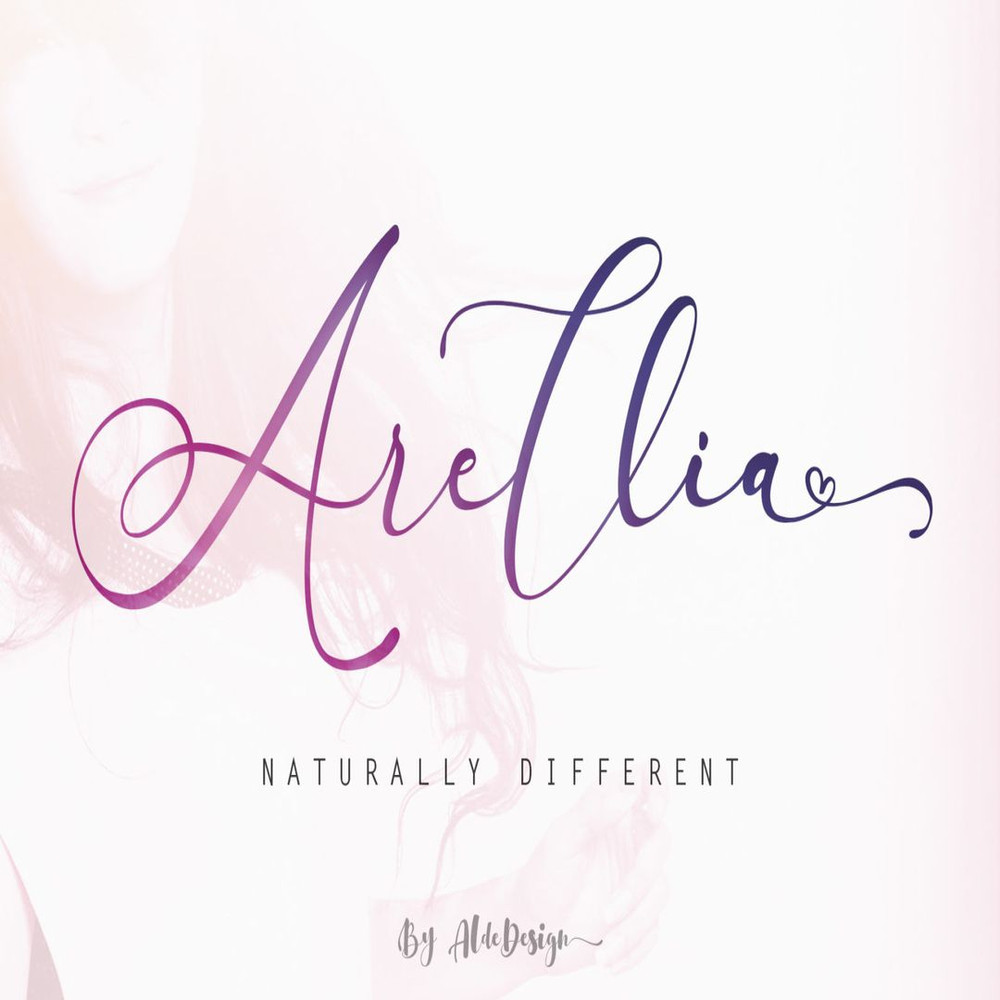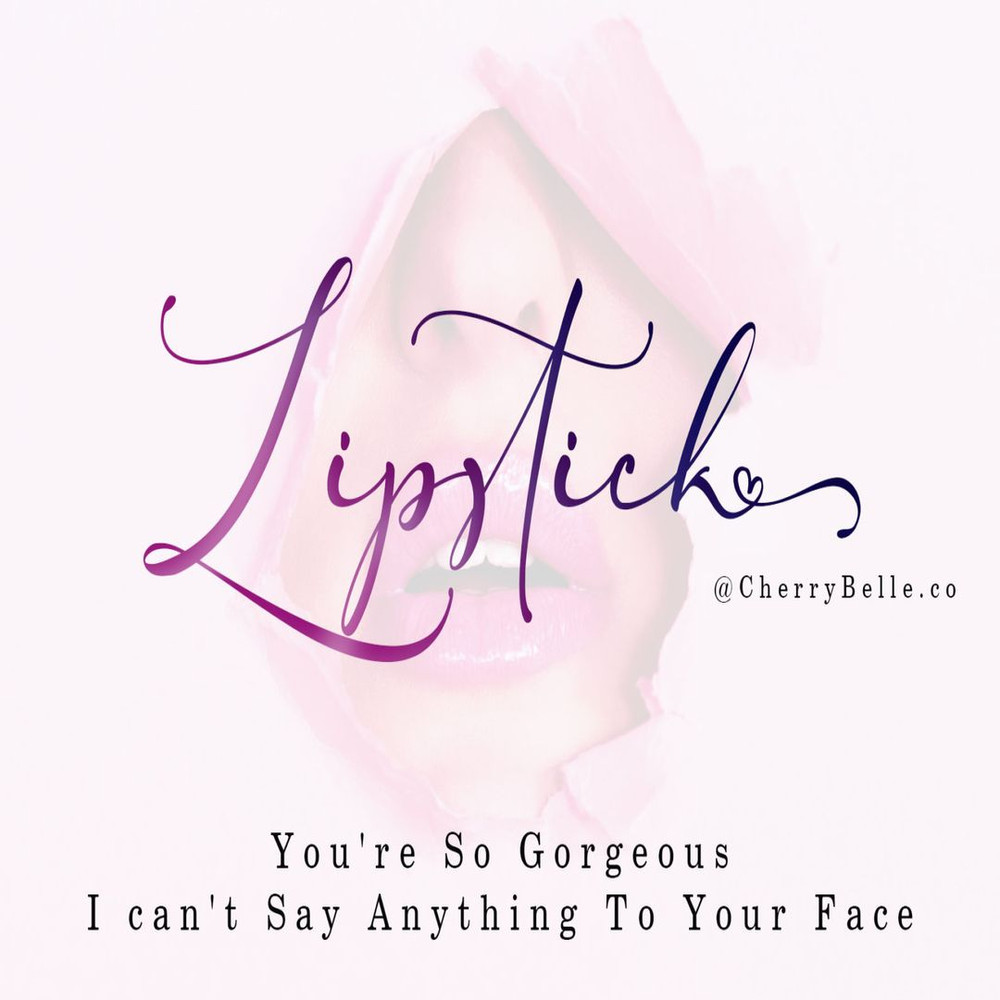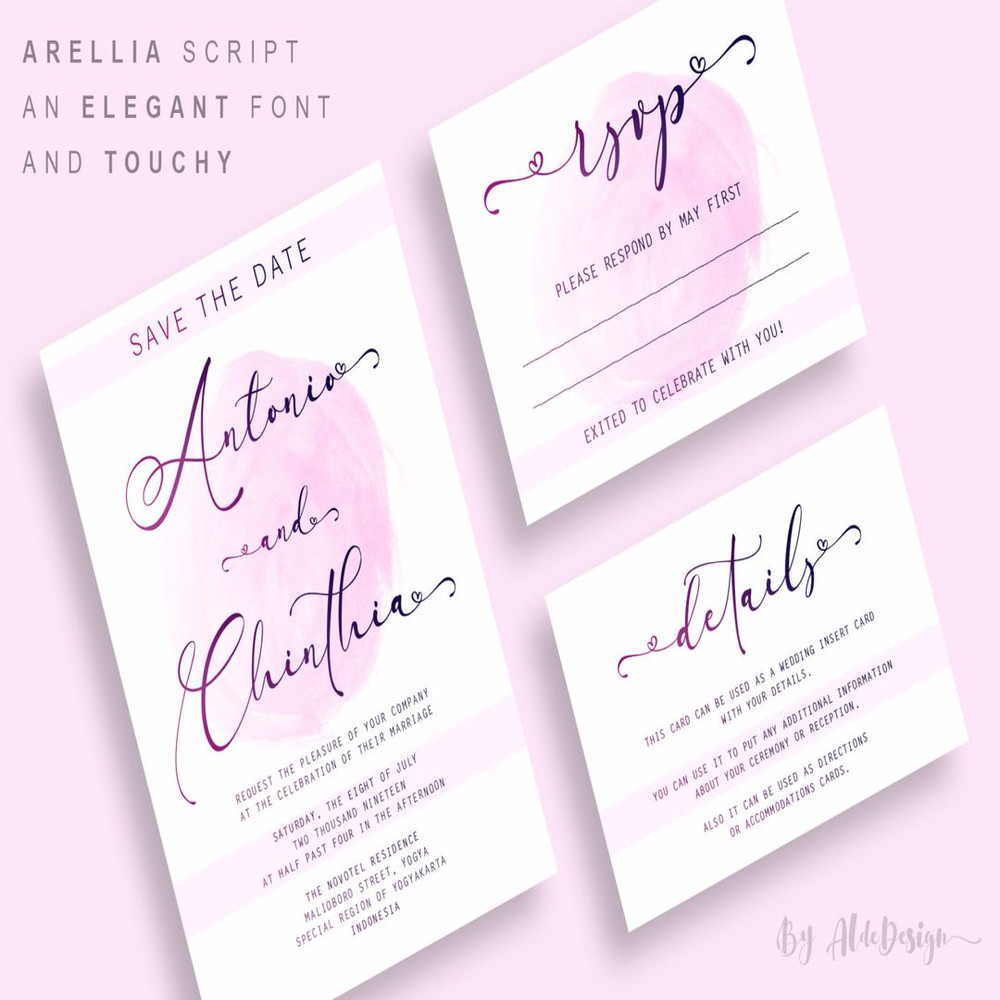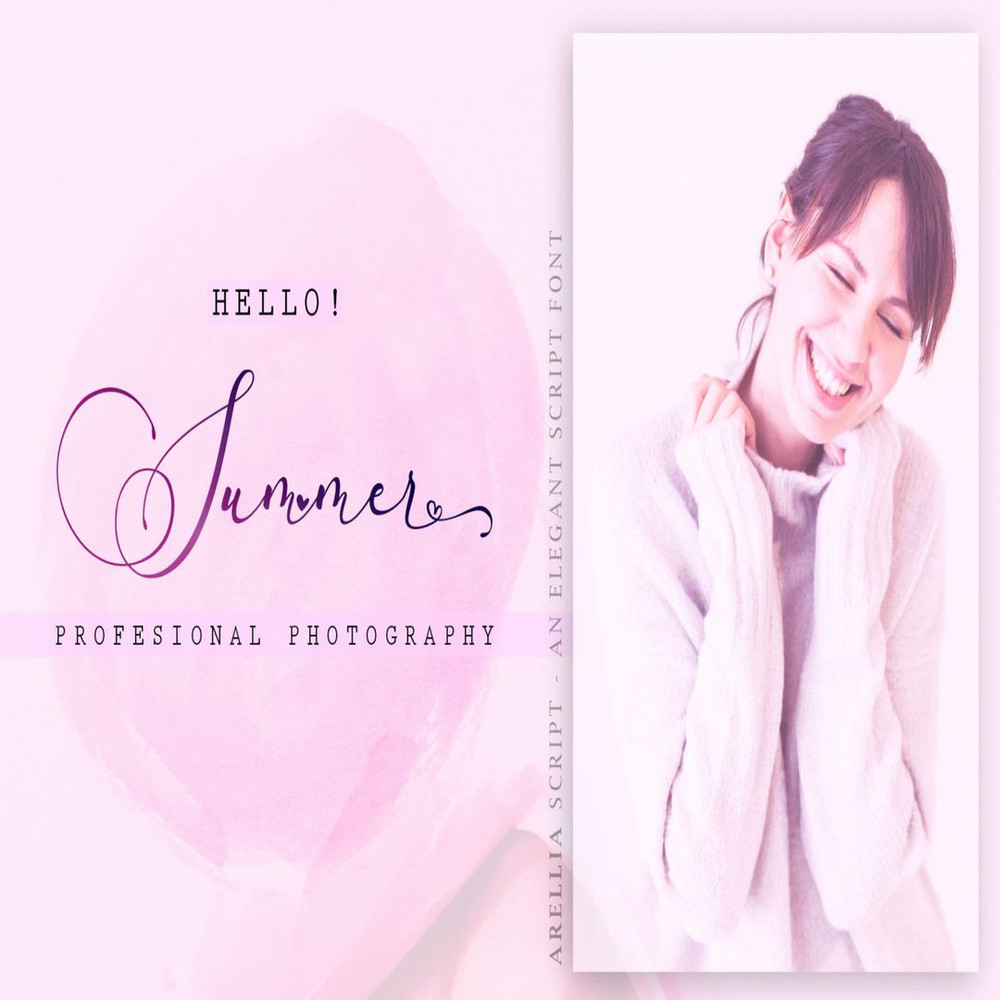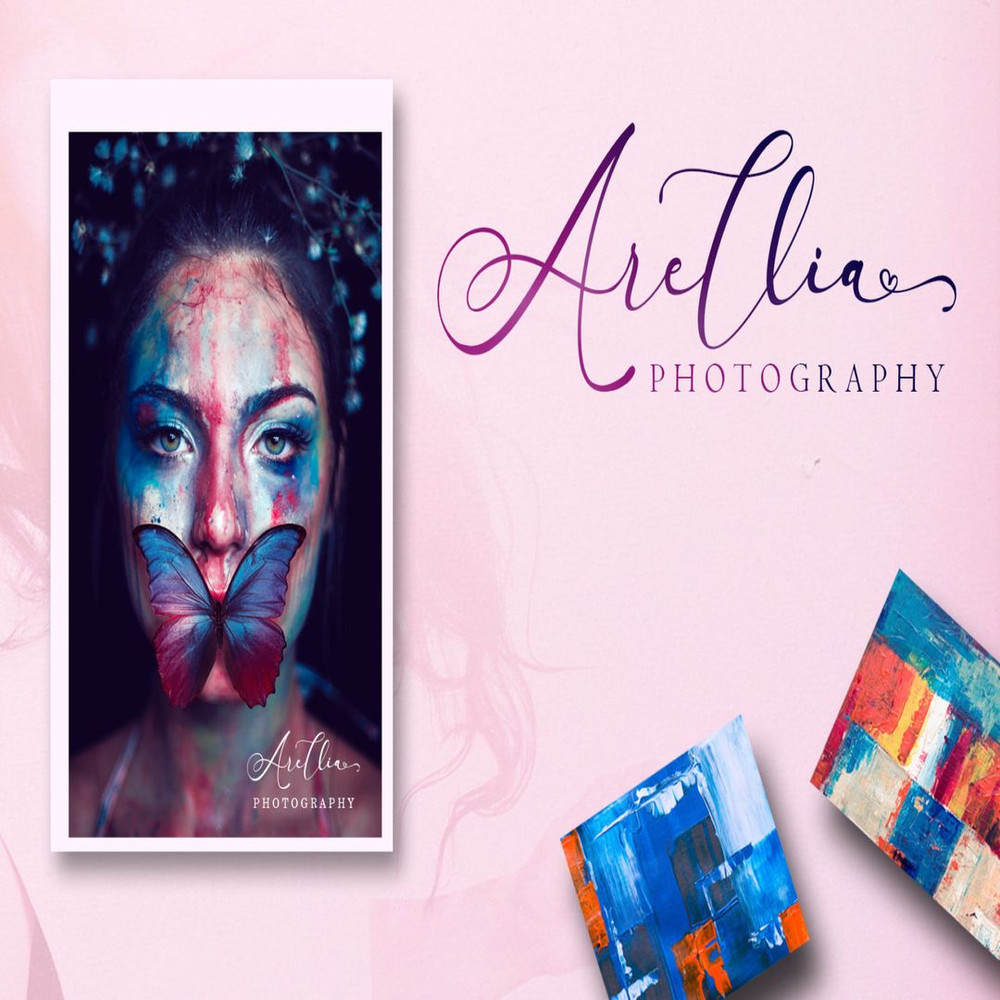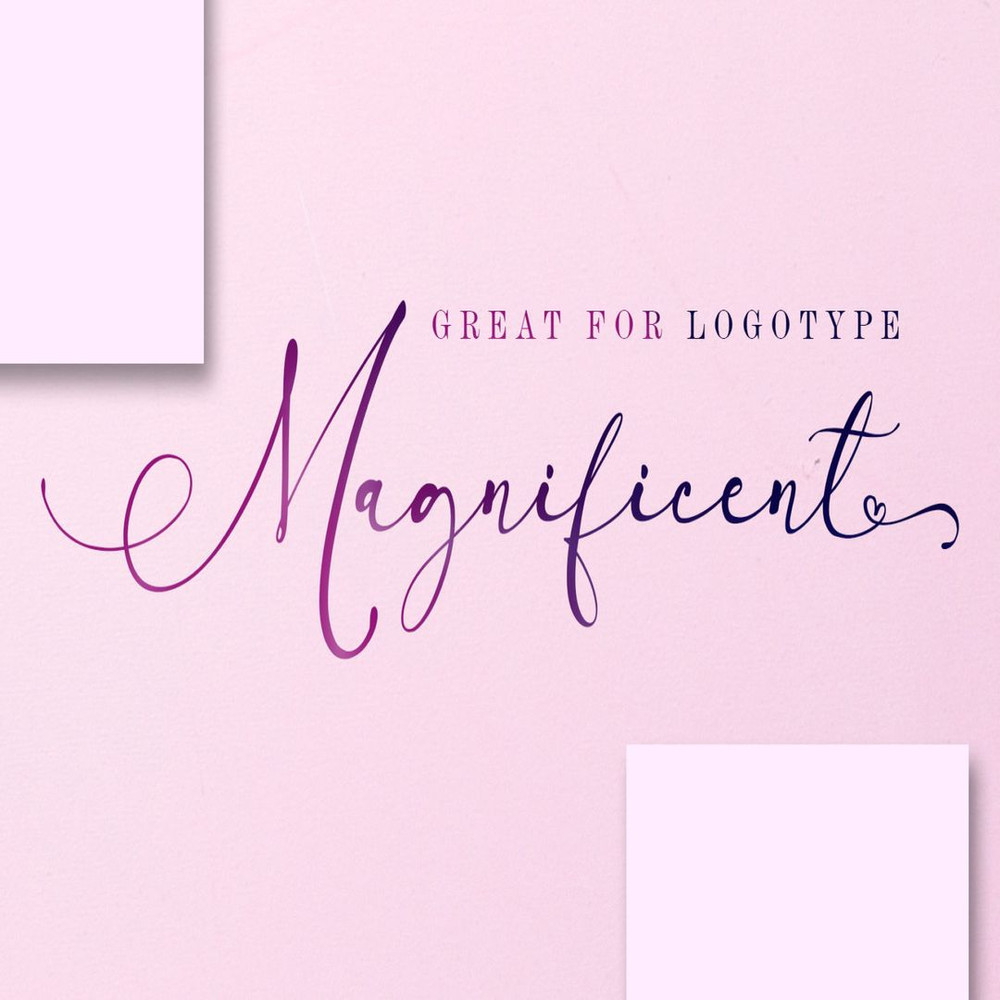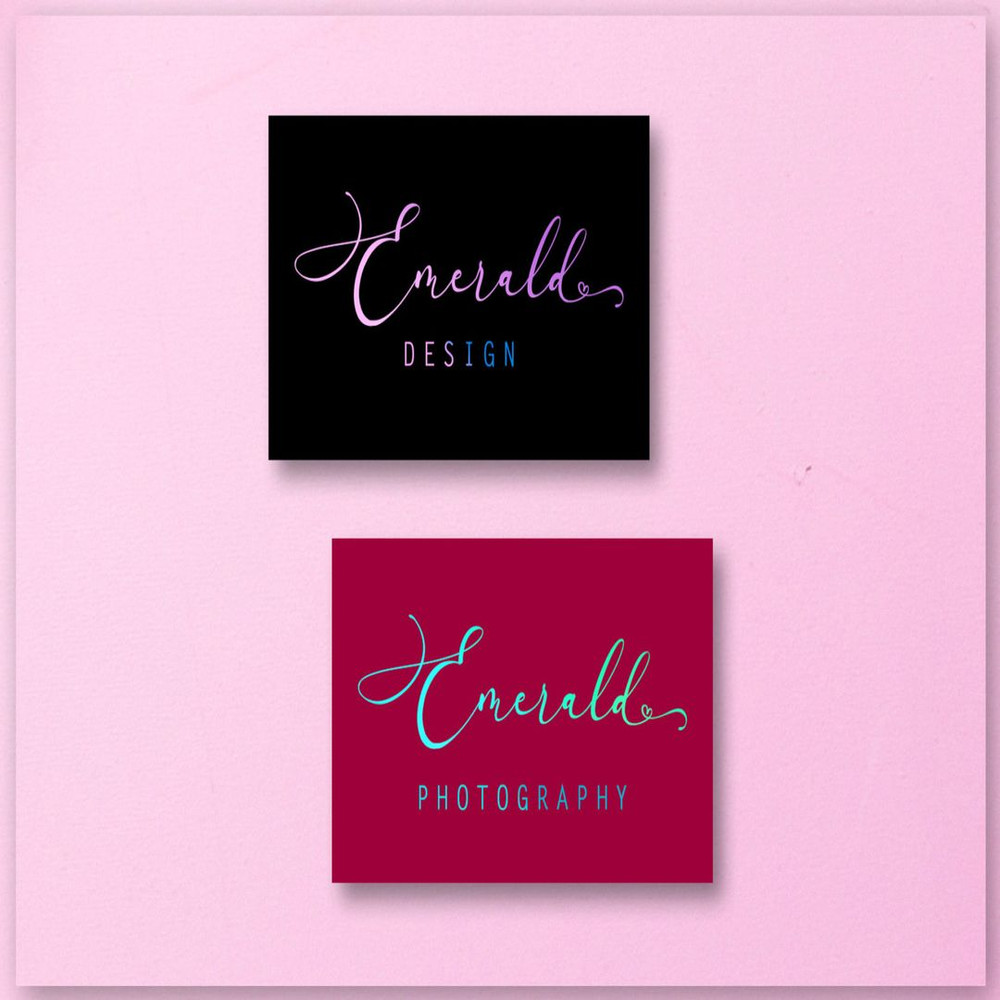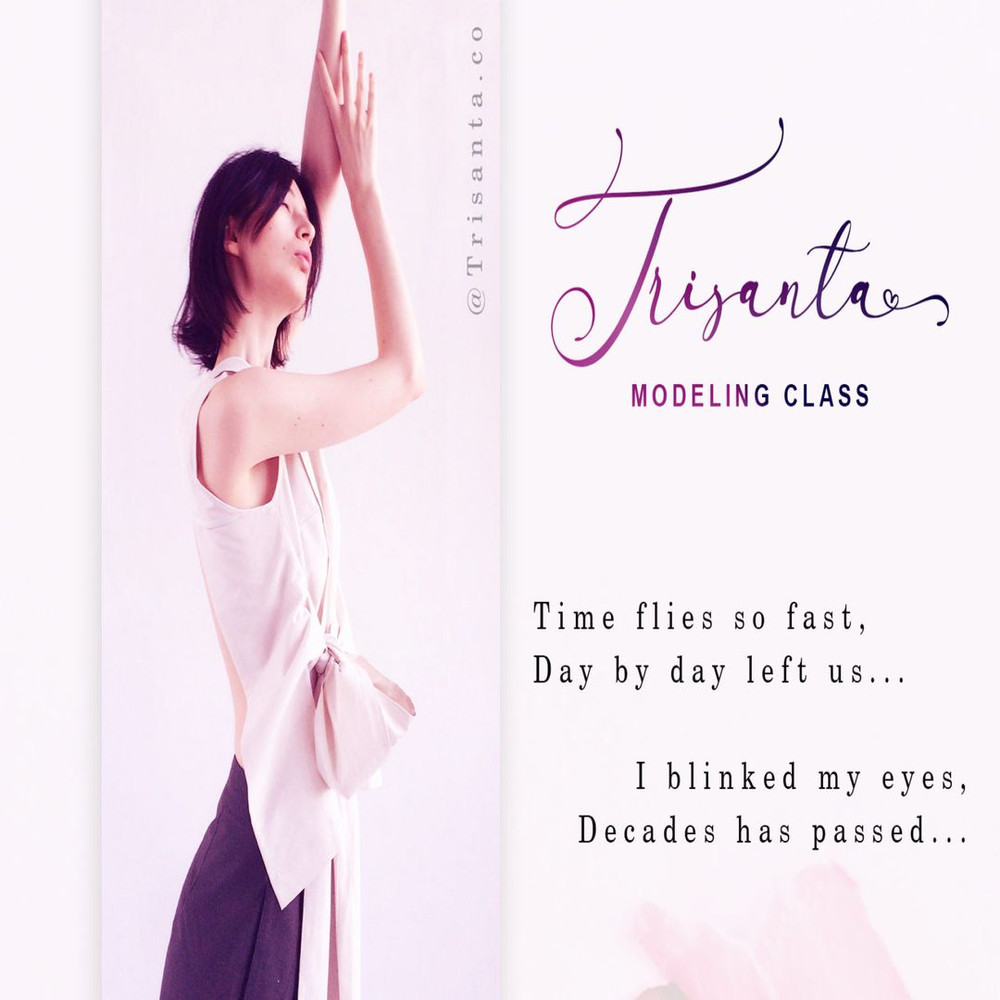
Arellia Script // Luxury Font Trending Fonts - Digital Font
Arellia – Beautiful Script is a stylish handwritten font that features a varying baseline, smooth line, modern and with a depth love. For those of you who are need a touch of love and modernity for your designs or branding, it can be used for various purposes such as headings, wedding, invitation, signature, logos, branding, t-shirt, letterhead, signage, labels, news, posters, badges etc.
Arellia Script // Luxury Font Trending Fonts - Digital Font
Arellia – Beautiful Script is a stylish handwritten font that features a varying baseline, smooth line, modern and with a depth love. For those of you who are need a touch of love and modernity for your designs or branding, it can be used for various purposes such as headings, wedding, invitation, signature, logos, branding, t-shirt, letterhead, signage, labels, news, posters, badges etc.